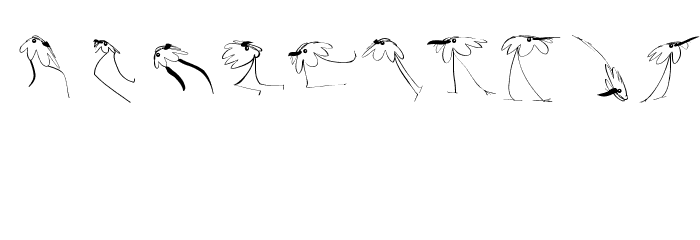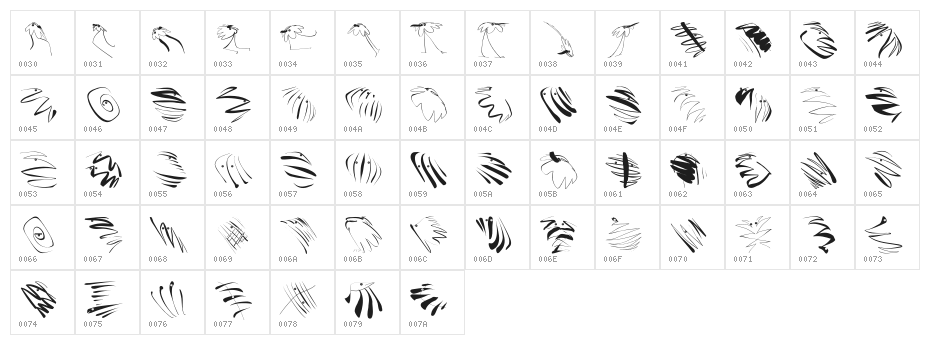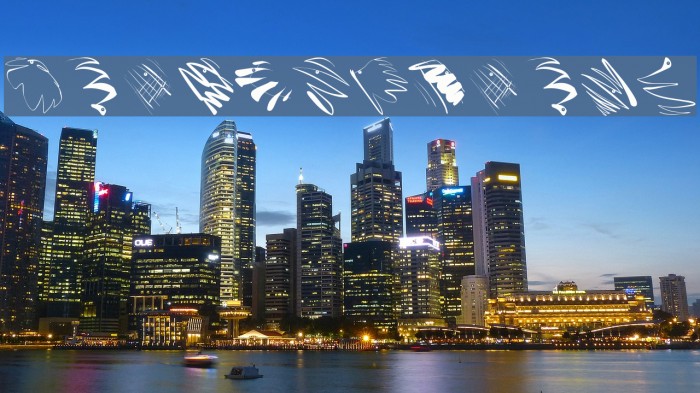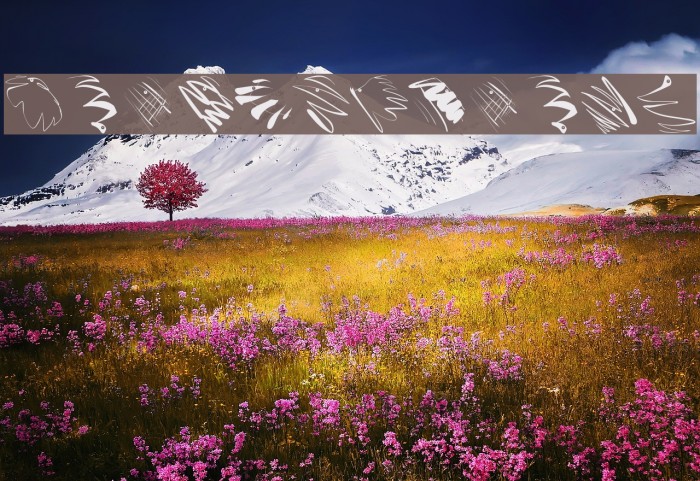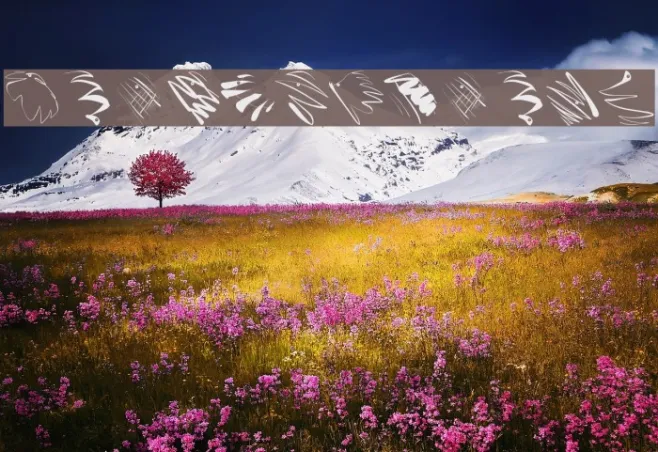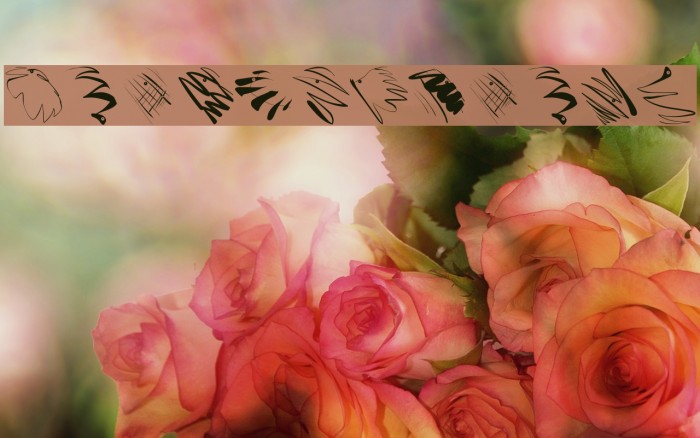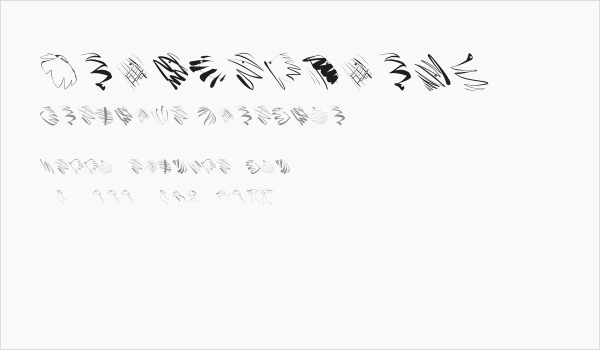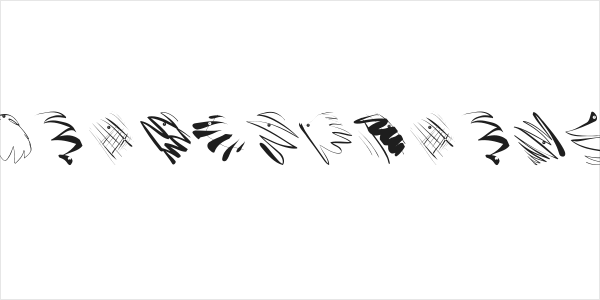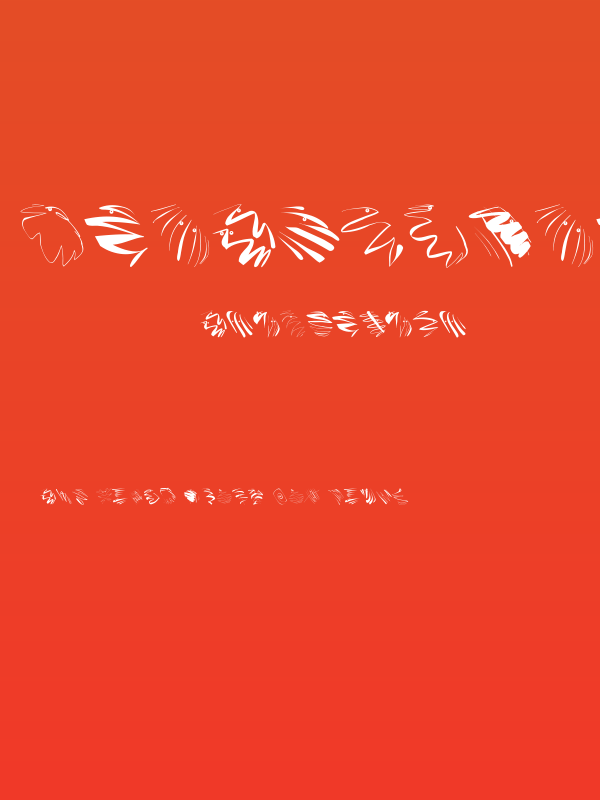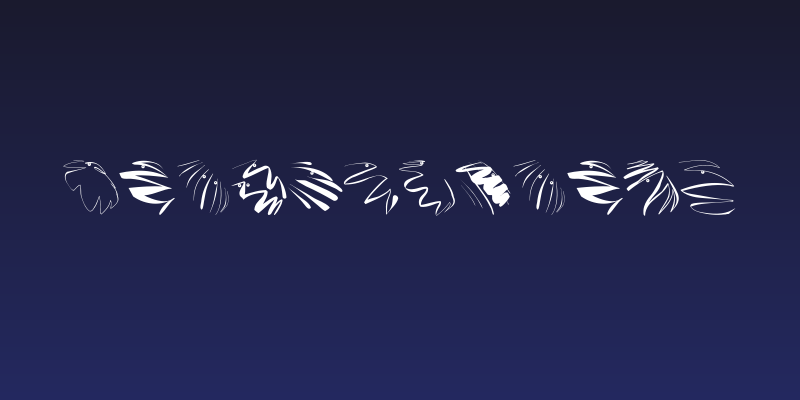
KritzelBirds Font
KritzelBirds Description
This is not a valid font. The image contains abstract, bird-like sketches that do not correspond to any recognizable alphabet or numeric characters. The designs are artistic and resemble doodles or illustrations rather than typographic elements. Each figure appears to be a unique representation of a bird, with varying shapes and strokes, emphasizing creativity and artistic expression. The elements are more suited for decorative purposes rather than functional typography.
| Overall Style | Artistic, Abstract |
| Use Case | Decorative illustrations, artistic designs. |
| Proposed Projects | Artistic projects, decorative illustrations, creative design elements. |